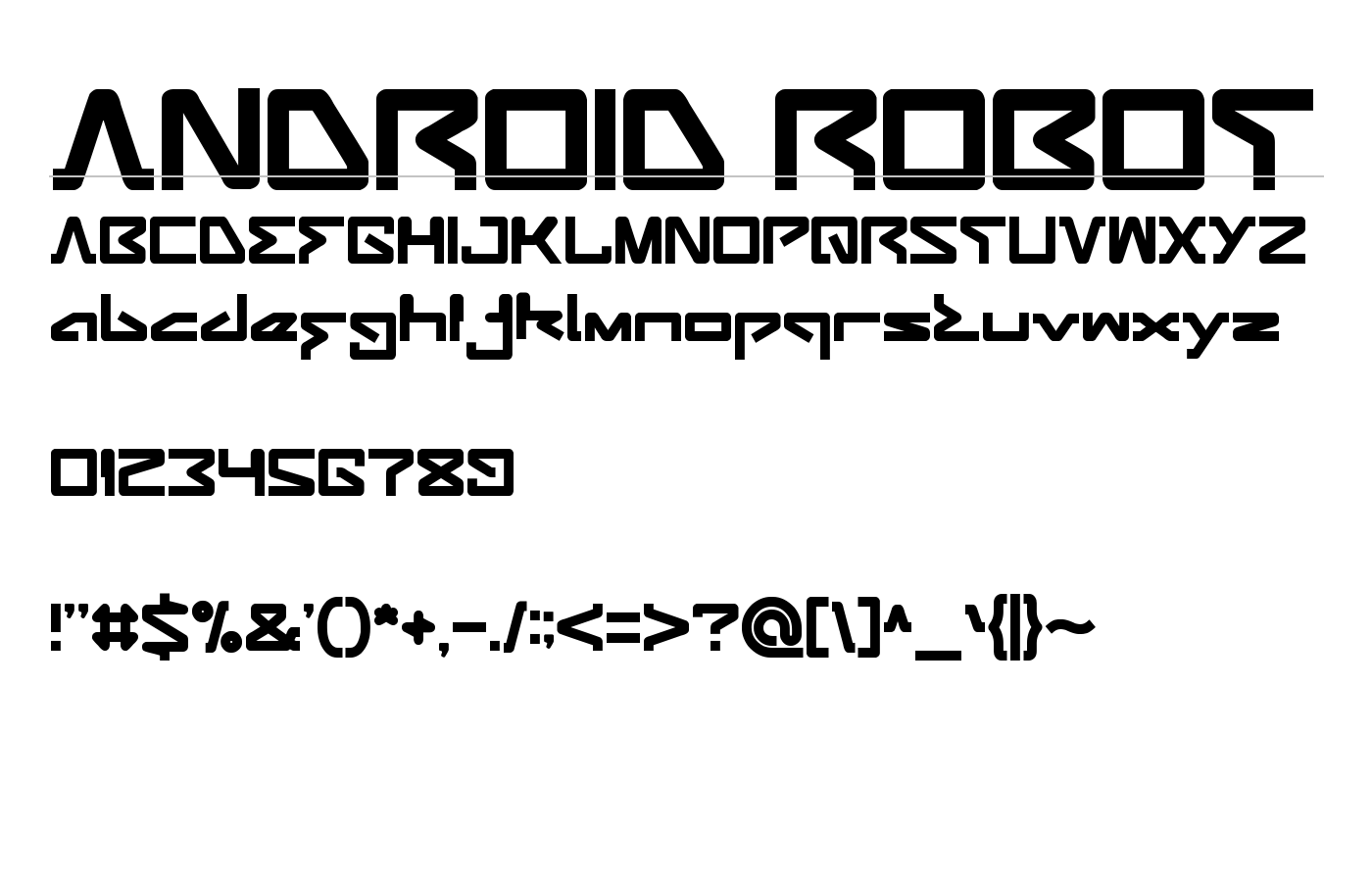
ANDROID ROBOT is a bold, futuristic sans serif font with a geometric and angular style that evokes a tech-savvy, modern vibe. Its sharp edges and distinctive letterforms give it a robotic, digital personality, making it perfect for technology brands, sci-fi themed designs, and digital interfaces. This font works best in logos, headlines, and posters where a strong, innovative statement is needed.
ANDROID ROBOT Font
About ANDROID ROBOT Font